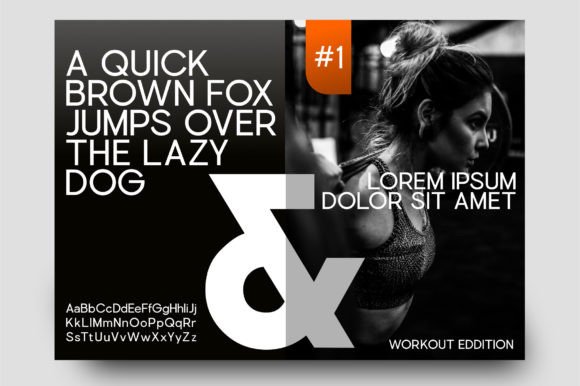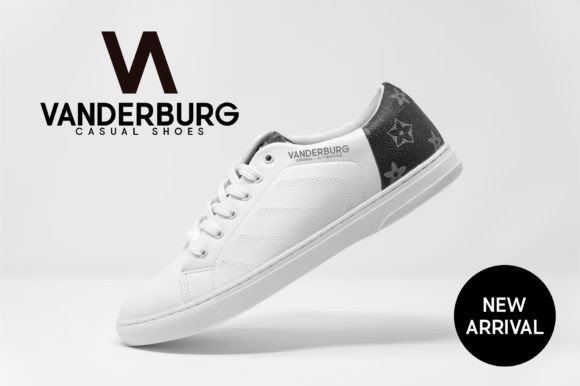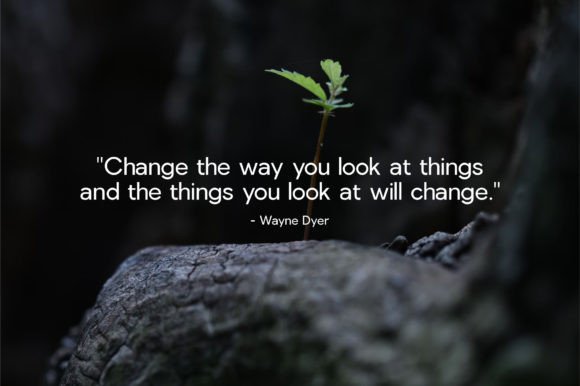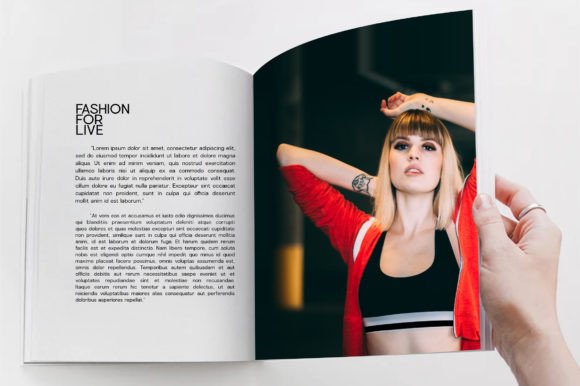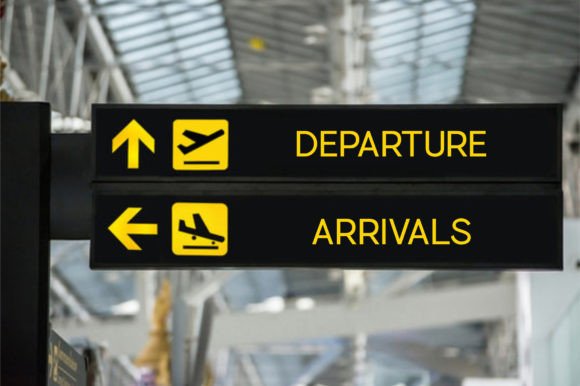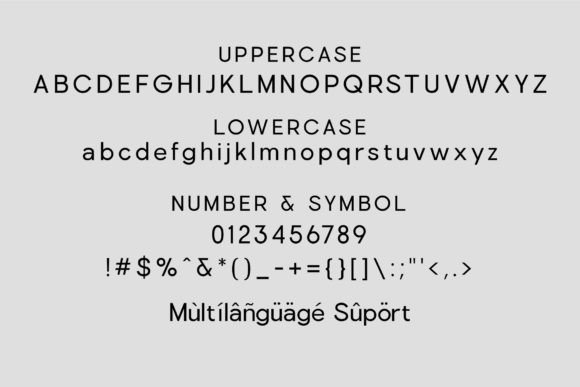
Have you ever been stuck in front of a blank design canvas, struggling to find the perfect font to bring your vision to life? We’ve all been there. The blank page staring back at you, taunting you with its emptiness. But what if we told you that there’s a font that could change everything? Enter Glonimove Font, the ultimate game-changer for designers.
This cutting-edge geometric font is designed to make your life easier. With its simplicity, sophistication, and flexibility, Glonimove Font is the perfect choice for any design project. Whether you’re working on branding, sales materials, signage, or print design, Glonimove Font is sure to add a modern touch that will leave a lasting impression.
Glonimove Font Key Features
- Font Family: Glonimove is a modern sans-serif font family designed for digital use.
- Unique Characteristics: Glonimove features a distinctive, rounded edge design with a subtle flair at the terminals, giving it a friendly and approachable feel.
Glonimove Font Review
I’ve had the chance to work with the Glonimove font, and I’m here to share my honest thoughts on it.
- The unique blend of futuristic and minimalist styles gives Glonimove a distinct look that’s perfect for tech-related projects.
- The font’s high contrast and clear typography make it highly legible, even at small font sizes.
- Glonimove supports a wide range of languages, making it a great choice for international projects.
- The font’s bold weights can feel a bit too bold at times, overpowering the rest of the design.
- The font’s support for certain special characters and accents can be spotty, requiring manual adjustments in some cases.
- While the font’s unique style is great for tech projects, it may not be the best choice for more traditional or formal designs.
Glonimove is a solid choice for designers working on tech-related projects, particularly those that require a futuristic and high-tech feel. However, it may not be the best fit for more traditional or formal designs. With some careful planning and adjustments, Glonimove can be a great addition to your design toolkit.
Getting the Most Out of Glonimove Font
To get the most out of Glonimove Font, consider the following tips:
- Use Glonimove Font for headings and titles to create a bold and eye-catching effect.
- Pair Glonimove Font with other fonts to create a unique and interesting typographic combination.
- Experiment with different font sizes and styles to find the perfect balance for your design.